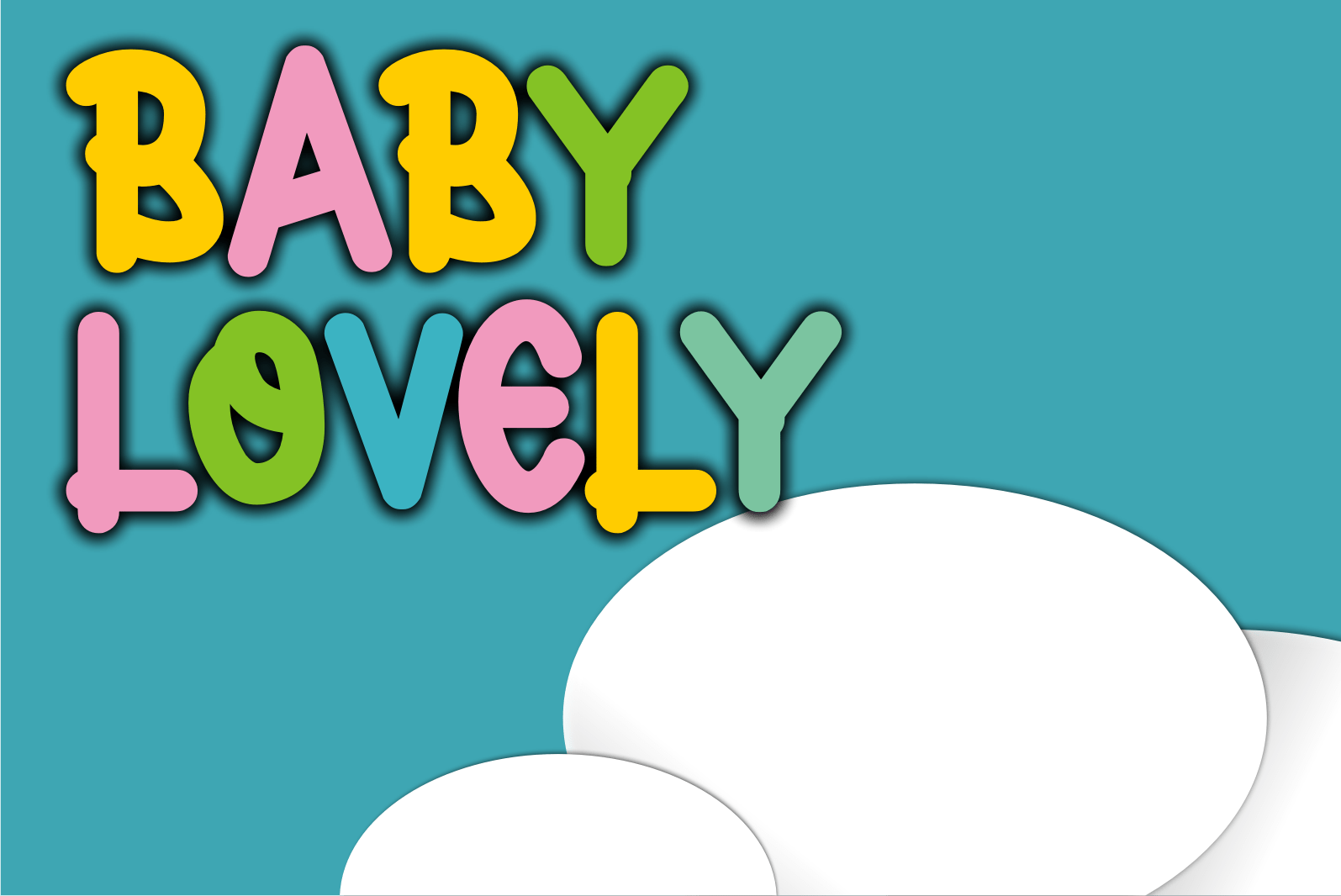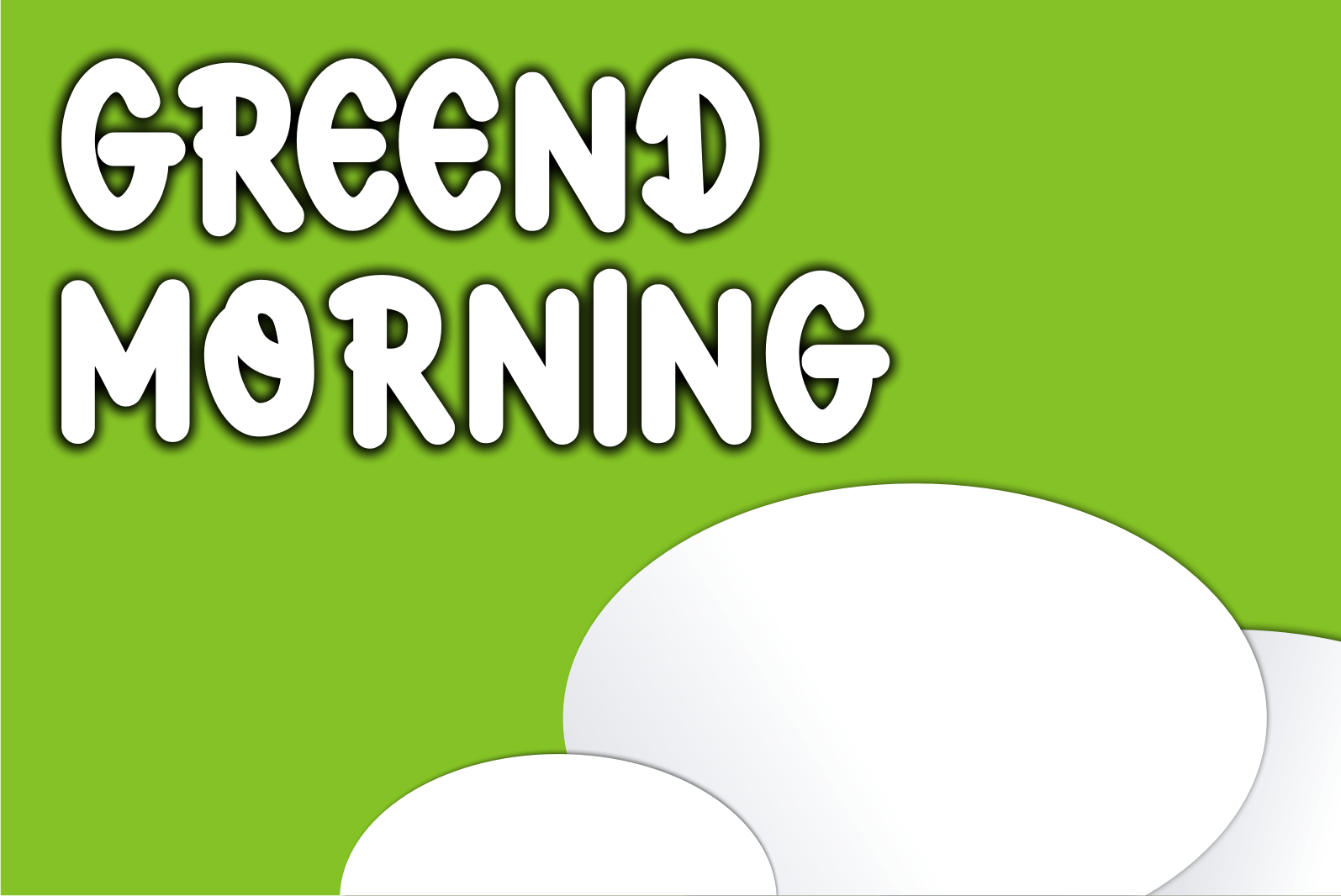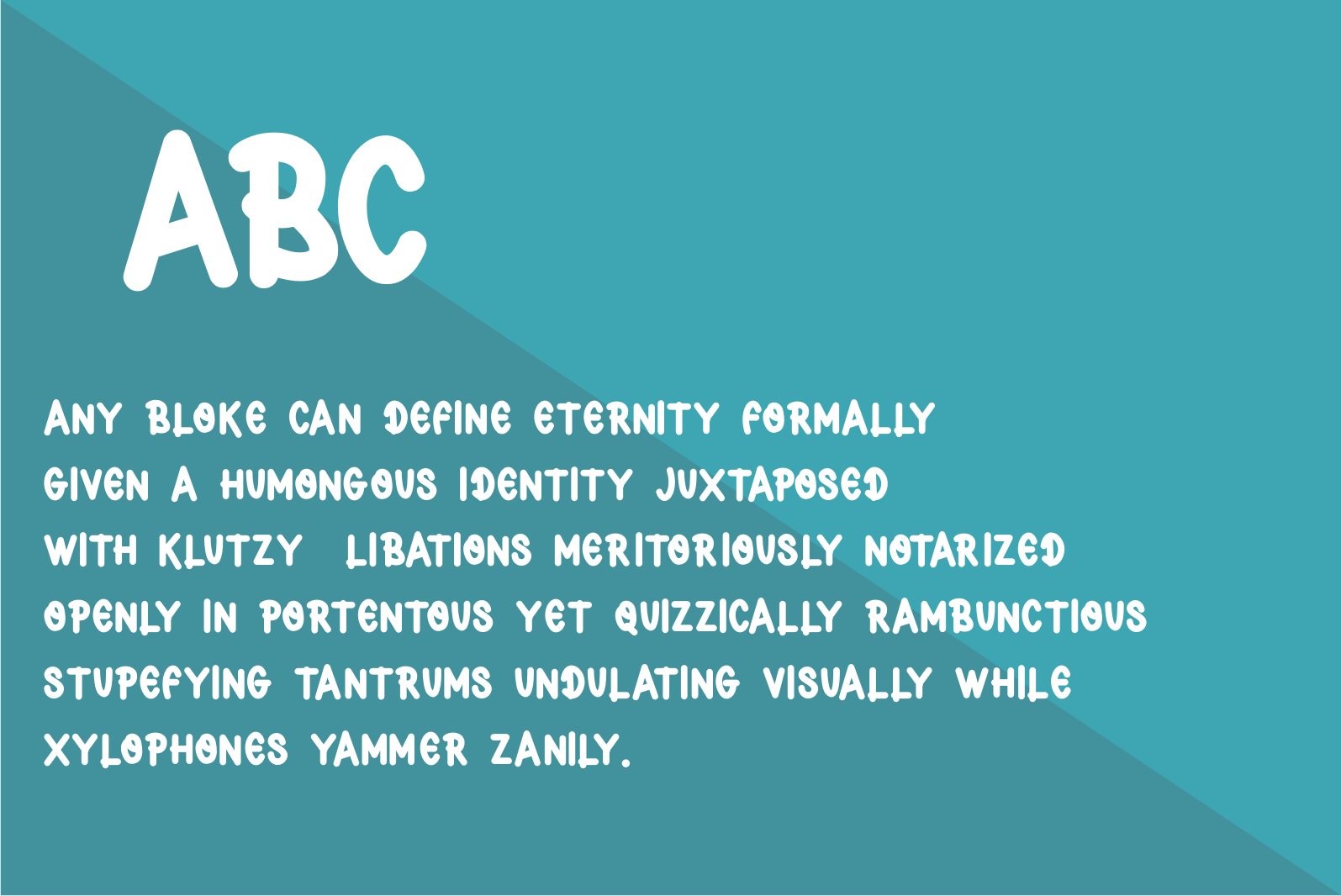
Bommer Cutes Font
Bommer Cutes Display Font
It’s a cool and trendy-looking display font. This font is great for logos, badges, clothing, posters, and other projects that need to stand out from the crowd.